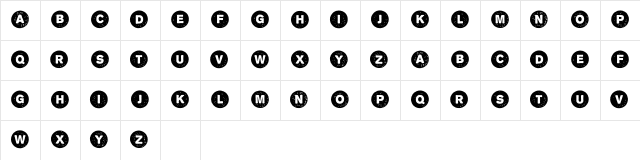
SectionIntersection Regular
Design Context for SectionIntersection Typeface
SectionIntersection takes a measured approach to typography — its balanced proportions and neutral character make it a reliable workhorse for both digital and print work.